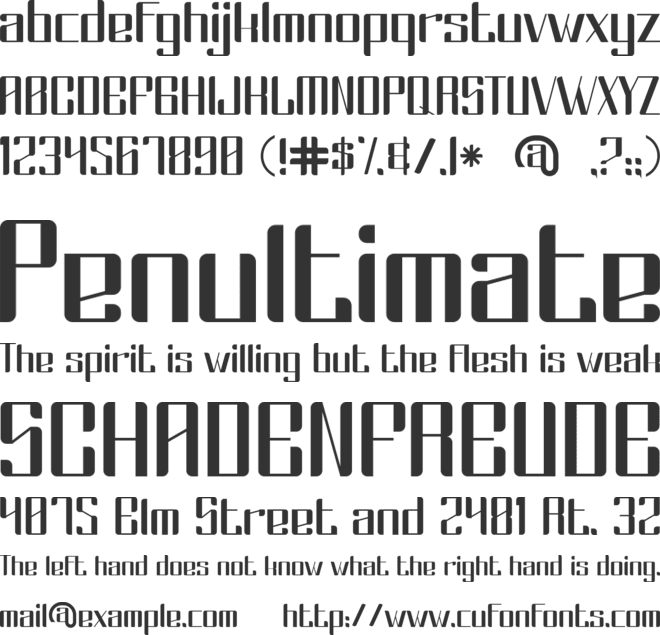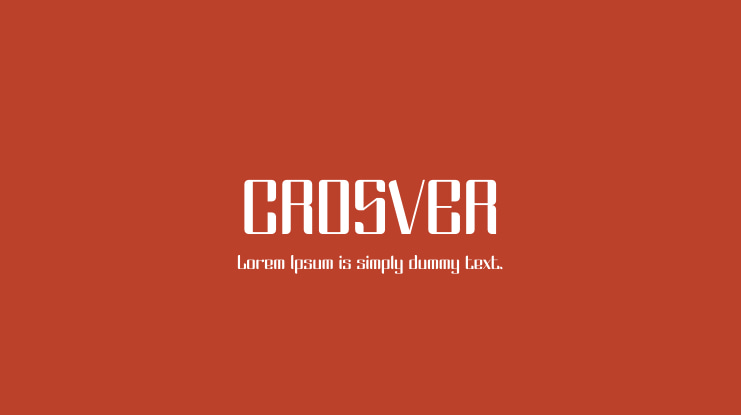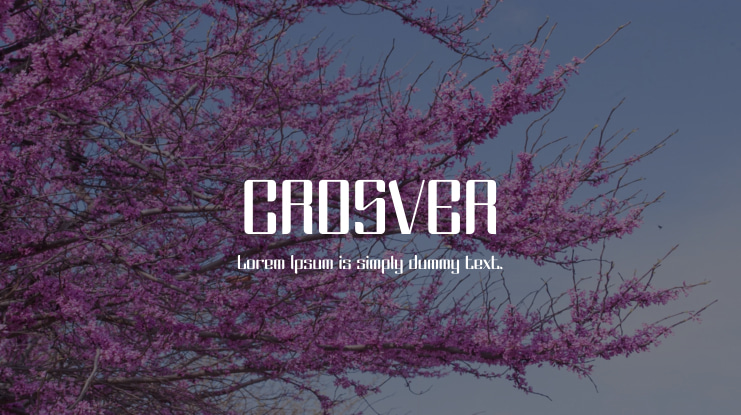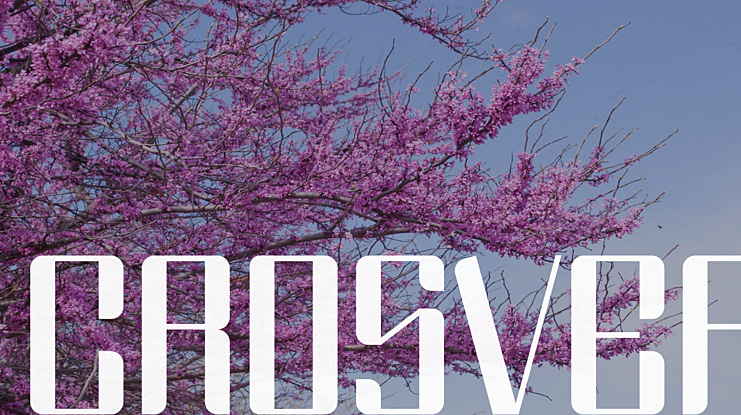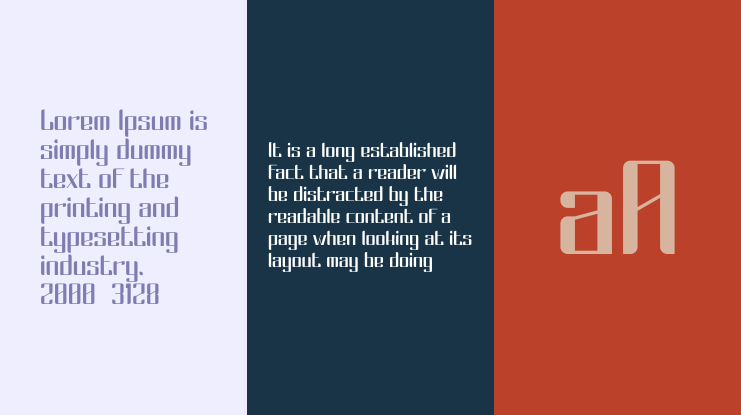
CROSVER Font
Gilang Ternadho
Introducing our new product **CROSVER Font** - Modern Font
**CROSVER Font** - Modern Font is a bold and authentic display font. The font is suitable for any branding project like logo, t-shirt printing, esport, and many more. outstanding in a wide range of contexts.
* Uppercase
* Lowercase